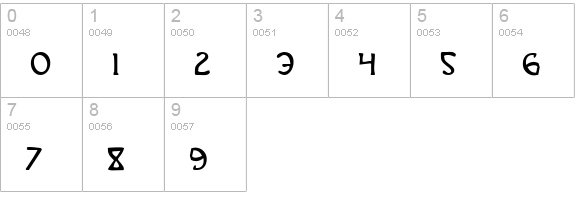
Brin Athyn Condensed is a distinctive, condensed-width variant in the Brin typeface family \xE2\x80\x94 well suited to design and typography projects.
Brin Athyn Condensed font is a sleek and modern typeface that exudes elegance and sophistication. With its condensed design and clean lines, this font is perfect for creating a professional and polished look in your designs. The slender letterforms of Brin Athyn Condensed font make it ideal for use in headings, titles, and branding materials. What's even better is that Brin Athyn Condensed font is available for free download at FontsMarket.com. Whether you're working on a personal project, a client's design, or simply looking to freshen up your typography collection, this font is a fantastic choice. Don't miss out on the opportunity to add this versatile and stylish typeface to your font library today!